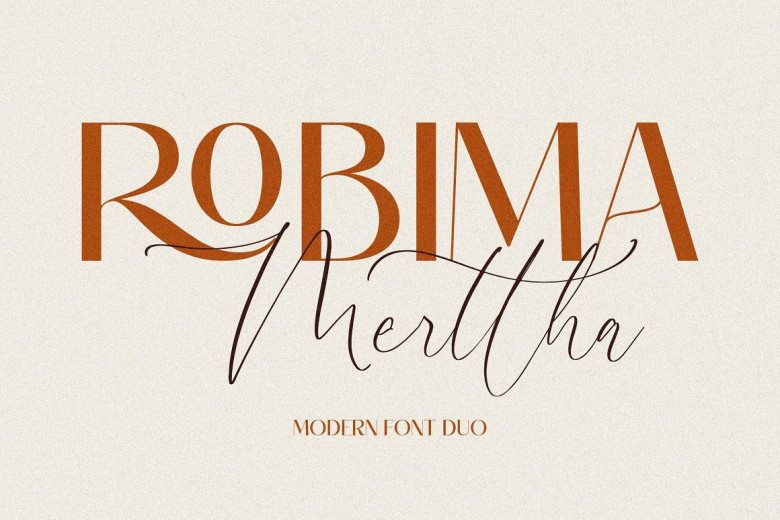
Robima Merttha Font
Robima Merttha is an elegant combination of fonts (sans serifs and script). Ideal for high-end logos, movie or book covers, fashion labels magazines clothing letters quotes and many other applications, Robima Merttha can add style to logos movie books movie covers designs movie posters fashion labels clothing letters quotes etc.
Robima Merttha Font Duo